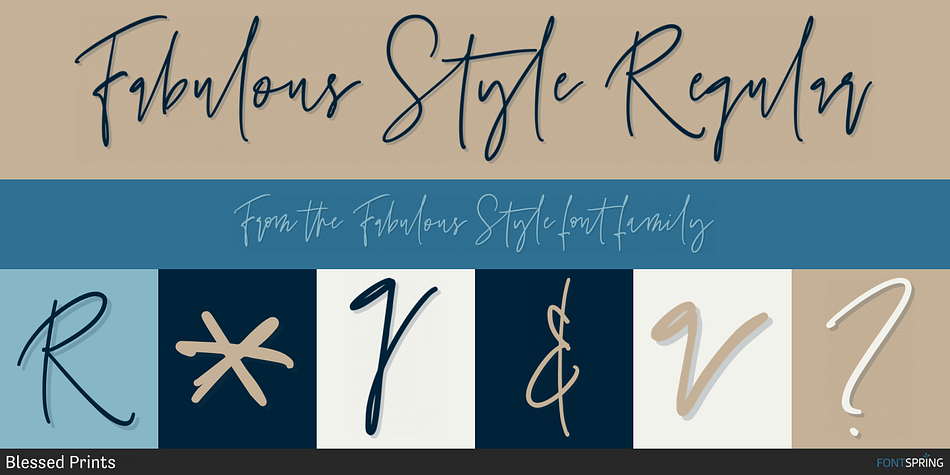
Fabulous Style Regular
Designed by Dmitrii Mikitenko, Fabulous Style is a modern calligraphy font family. This typeface has four styles and was published by Blessed Prints.
4 style font family inspired on modern calligraphy style. It has numerous alternates and swashes. Just type a number after any letter to apply alternates.